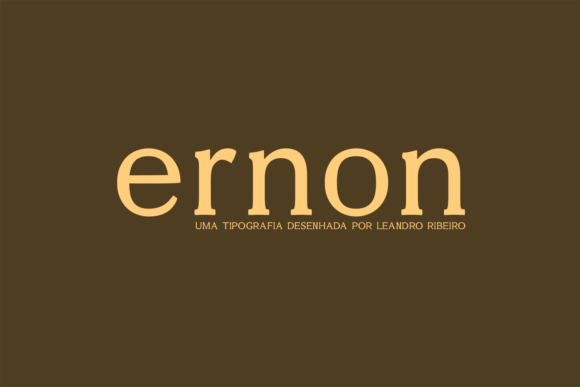
Get ready to tantalize taste buds and turn food packaging into a feast for the eyes with Ernon Font, the ultimate serif font for culinary creations. Crafted by the ingenious minds at lerima, Ernon is a versatile and captivating font that will make your products stand out on any shelf.
With its elegant serifs and graceful curves, Ernon Font exudes an air of sophistication that is sure to leave a lasting impression. Its carefully balanced strokes create a visual harmony that draws the eye and invites customers to explore your culinary delights. Whether you're designing packaging for gourmet chocolates, artisanal coffee, or mouthwatering pastries, Ernon Font will elevate your brand and make your products irresistible.
Ernon Font's versatility extends beyond packaging design. Its readability and clarity make it ideal for book texts, documentation, business reports, and correspondence. Its stylish appearance adds a touch of professionalism to magazines, newspapers, posters, and advertisements. Ernon Font also shines in multimedia presentations and corporate designs, conveying your message with impact and elegance.
With Ernon Font, you're not just choosing a font; you're choosing a storytelling tool that captures the essence of your culinary creations and enchants your customers. Its timeless appeal will ensure that your brand stays at the forefront of their minds, making Ernon Font an investment that keeps on giving.